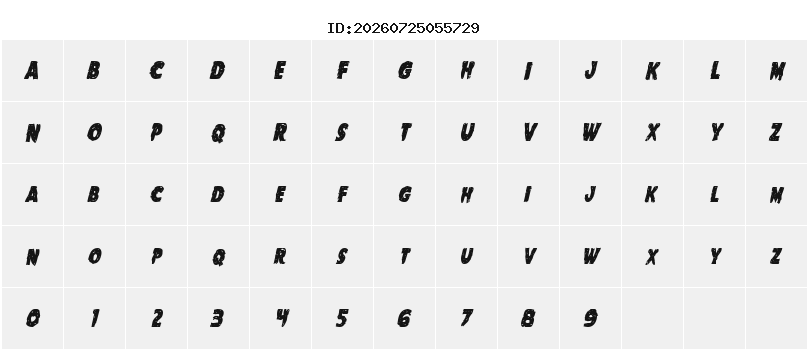
Goblin Creek Condensed Italic Preview
• Font Name: Goblin Creek Condensed Italic
• Font Style: Condensed Italic
• Full Font Name: Goblin Creek Condensed Italic
About Goblin Creek Condensed Italic.ttf
Goblin Creek Condensed Italic.ttf is a modern, elegant sans-serif font designed for ultimate readability and visual harmony. Perfect for branding, headlines, web design, and print materials.